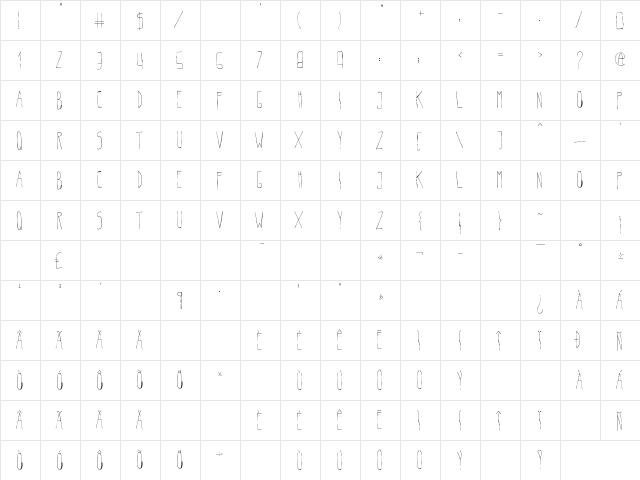
Belta Light Regular
| Designer | Julia Martinez Diana, Antipixel |
Design Context for Belta Light Typeface
Belta Light offers clean, dependable letterforms without strong stylistic allegiance, making it a practical choice for designers who need flexibility. The delicate stroke weight brings airiness and refinement to layouts.